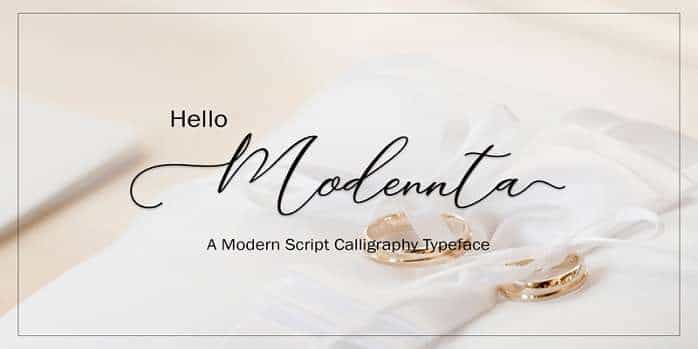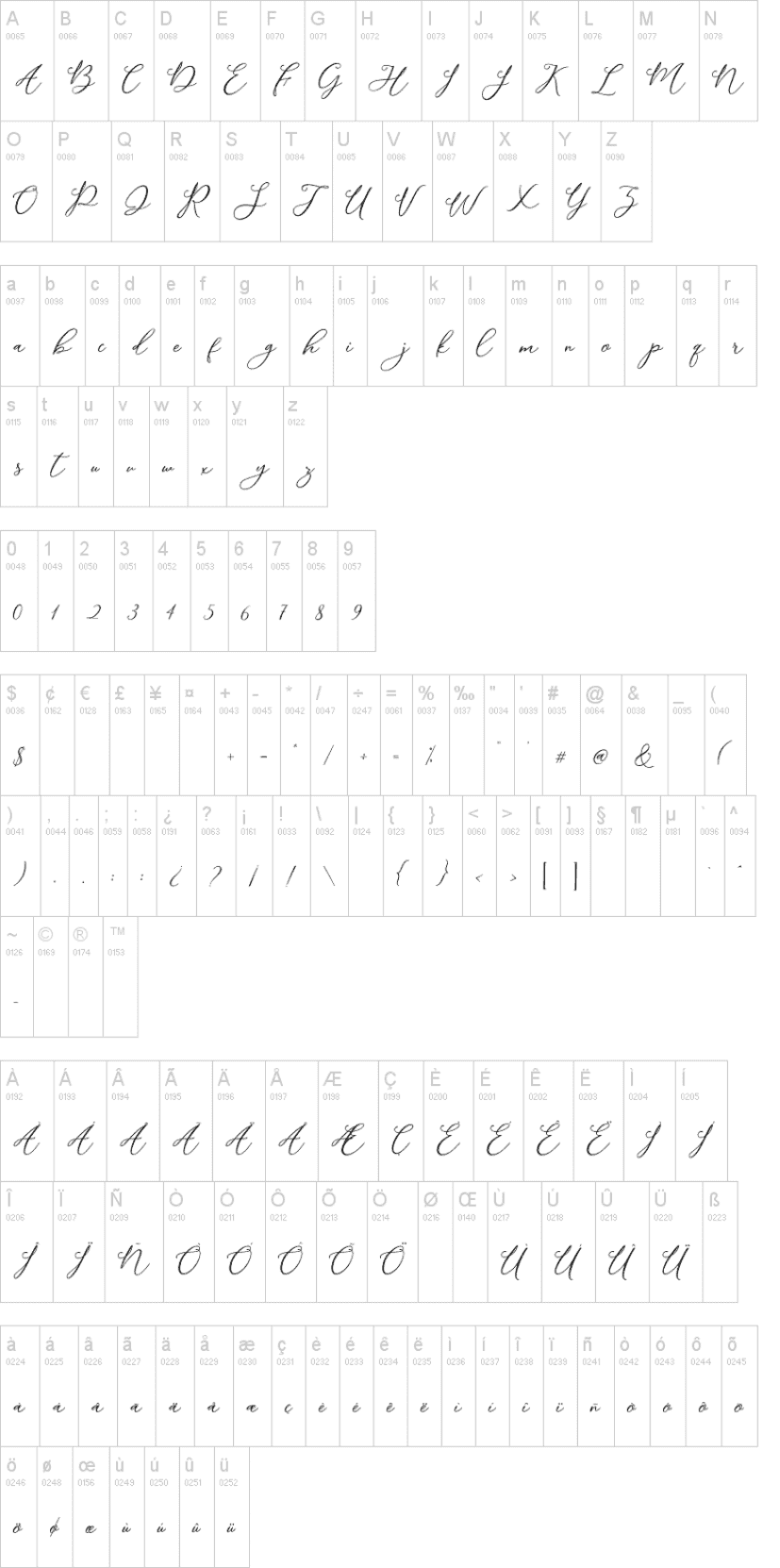
Discover Modennta Font, part of the Calligraphy collection—a versatile and unique font perfect for adding a personal touch to your projects. Download it for free and enjoy crafting designs with style, from invitations to social media posts. This font is available exclusively for personal use, giving you the freedom to create without limits. Unlock your creativity with Modennta Font today!
Modennta is a professional calligraphy font that has been developed by Ink creative and is available for free download for personal use only. The free version includes all the letters of the alphabet both in lowercase and uppercase, and a few other symbols as well.